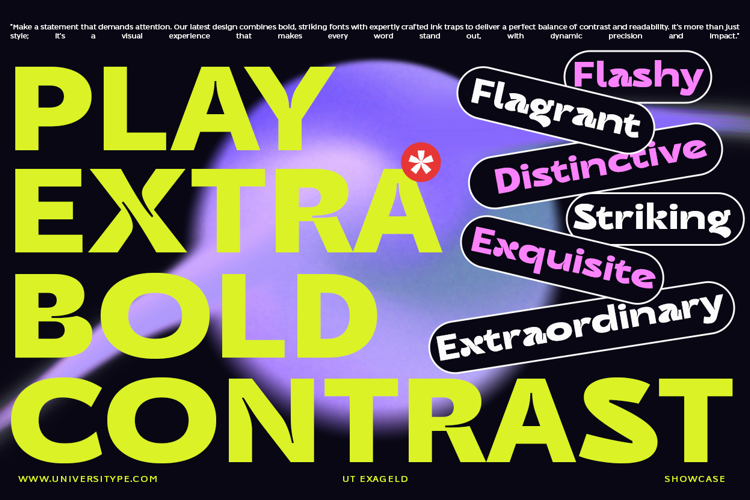
UT Exageld Font
UT Exageld draws inspiration from modern, bold, and sexy aesthetics popular in contemporary design. It is designed to make a statement and stand out in a crowded visual landscape.
The design process includes inspiration from abstract art, such as the statue “La femme et l’océan” by Mireille Lauf-Marquis, to create unique angles and bold statements.